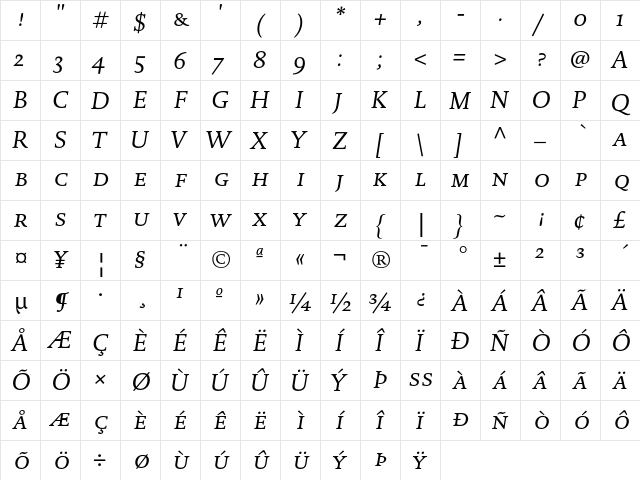
DTL Documenta T Caps Italic
Design Context for DTL Documenta Typeface
DTL Documenta offers clean, dependable letterforms without strong stylistic allegiance, making it a practical choice for designers who need flexibility. The slanted form adds forward momentum and visual energy.
Pro Tip: Try DTL Documenta for annotation and caption copy alongside an upright companion — the contrast in angle creates a dynamic but ordered typographic system.